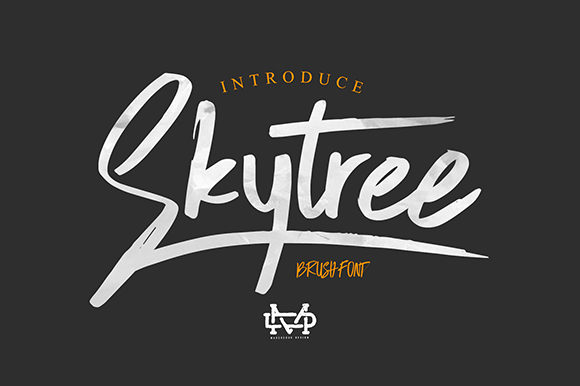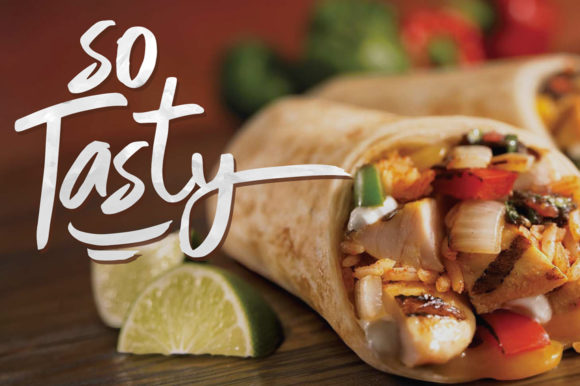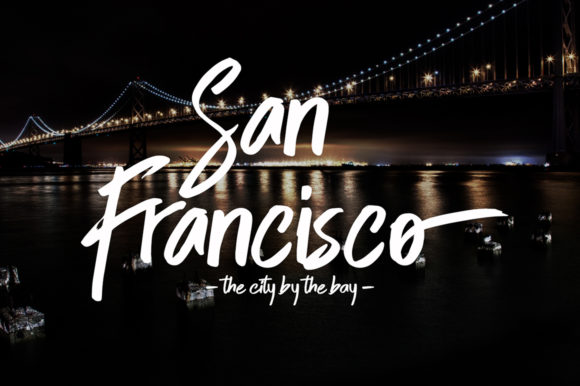
About Skytree Font
Skytree is a charming and graceful handwritten font, delicately crafted with the artistry of a brush pen. Its smooth and flowing lines add a touch of elegance and beauty to any creative project, breathing life into your ideas and infusing them with a sense of enchantment.
With its sweet and natural style, Skytree is an excellent choice for a wide range of designs. Whether you’re creating wedding invitations, thank-you cards, quotes, greeting cards, logos, business cards, or any other design that calls for a handwritten touch, this font will captivate hearts and leave a lasting impression.
The organic strokes of Skytree evoke a sense of free-spiritedness and authenticity, reflecting the beauty of handcrafted artwork. Its unique character adds a personal touch to your designs, making them stand out in a world of digital uniformity. Skytree’s gentle curves and graceful lines create a harmonious flow, exuding a sense of tranquility and peace.
Incorporating Skytree into your creative projects breathes fresh life into your ideas. Its versatility shines through in various applications, allowing you to experiment and explore different design possibilities. Whether you’re working on digital or print media, Skytree’s captivating presence will elevate your designs and draw viewers into a world of imagination and wonder.
One of the key features of Skytree is its ability to convey emotions effortlessly. Its soft and flowing nature exudes warmth and friendliness, making it an ideal choice for projects that seek to evoke positive emotions. The font’s soothing appearance can also be well-suited for relaxation-themed designs, mindfulness materials, and self-care content.
Skytree’s brush pen origin adds an artistic flair to your projects, giving them an organic and handcrafted feel. This authenticity can be particularly appealing in designs that emphasize creativity, artisanal craftsmanship, and a connection to nature.
From social media graphics to branding elements, Skytree’s charm adapts to various contexts, making it a versatile tool in your creative arsenal. Its ability to evoke emotions and create a personal connection with the audience makes it a valuable asset for businesses and individuals alike.
In conclusion, Skytree is a sweet and flowing handwritten font, meticulously crafted with a brush pen’s artistic touch. Its elegance, grace, and organic charm breathe life into your creative ideas, making them come alive with a sense of enchantment and authenticity. Add Skytree to your design projects, and witness how it transforms them into captivating works of art that resonate with your audience and leave a lasting impression.